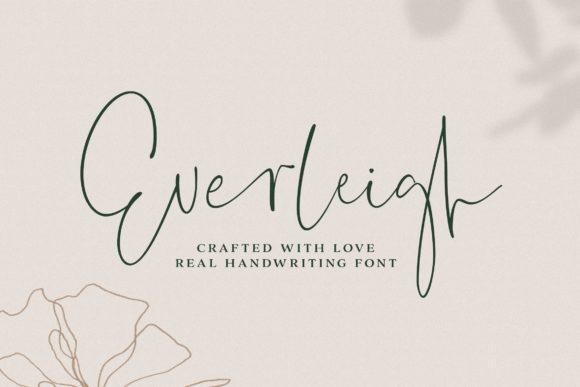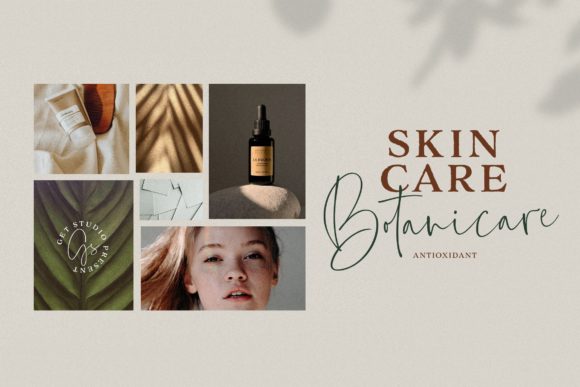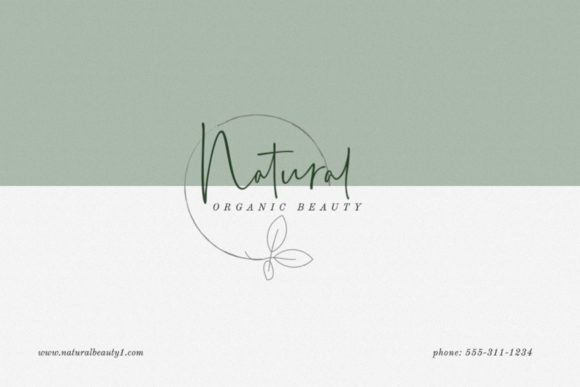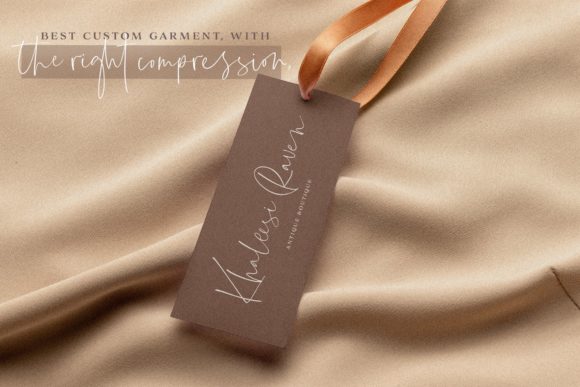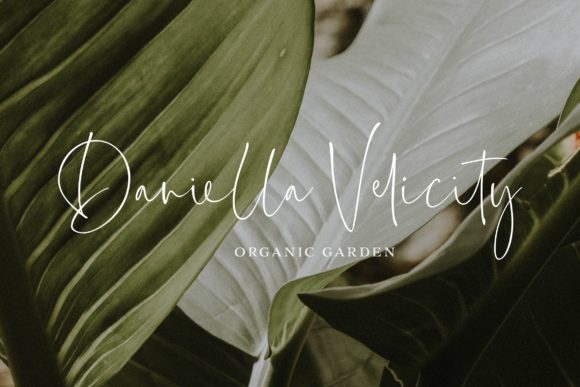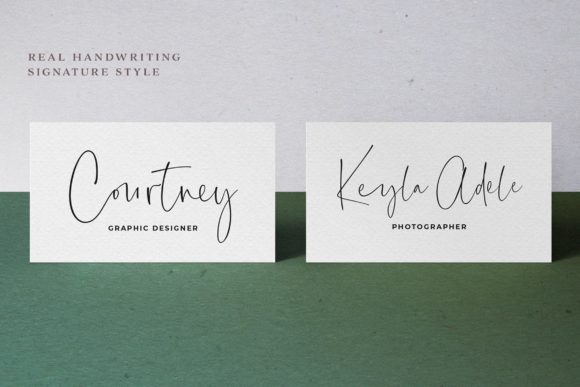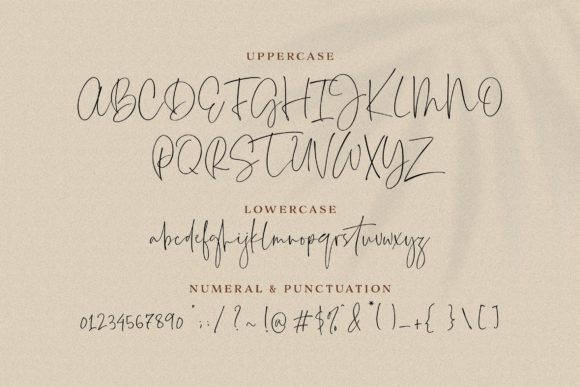
Everleigh Script Font
About Everleigh Script Font
Everleigh Script is a lovely and timeless handwritten font. It is the best choice for creating eye catching logos, branding and quotes. Every letter has a unique and beautiful touch, which will make your design come alive!